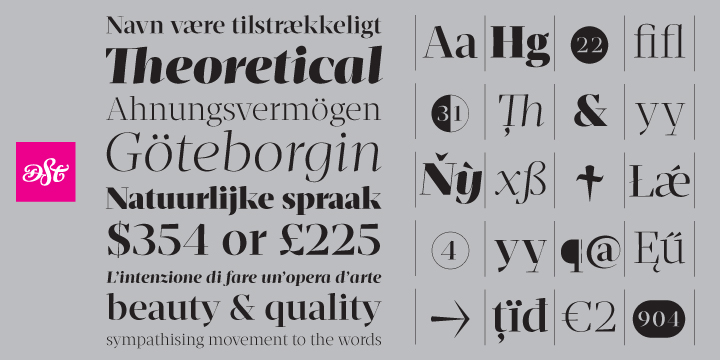
Mafra Display Font is perfect for luxury brand headlines, fashion magazine covers, high-end product packaging, premium advertising campaigns, elegant poster designs, upscale restaurant menus, boutique hotel branding, jewelry advertisements, cosmetics marketing, art exhibition titles, and any project that requires sophisticated display typography with commanding presence.
What makes Mafra Display Font exciting is its exceptional ability to command attention while maintaining refined elegance through dramatic letterforms that perfectly balance impact with sophistication. This striking typeface features bold proportions with carefully refined details that create powerful visual hierarchy without sacrificing readability or aesthetic grace. The font's display character makes every headline feel important and luxurious, making it ideal for premium brands that need to communicate exclusivity and high-end appeal.
Mafra Display Font comes in multiple font families including Regular, Bold, Light, Condensed, Extended, and Ornate variations, providing designers with comprehensive options to create impactful compositions and achieve the perfect luxury display aesthetic for high-end design projects.
Whether you're developing premium brand identity, creating luxury advertising campaigns, or designing elegant editorial layouts, Mafra Display Font Free Download offers the perfect solution for projects demanding sophisticated visual impact and luxury appeal. This commanding typeface excels in headline and display applications where premium presence is essential, ensuring your designs communicate exclusivity and refined taste. The elegant proportions and luxury character of Mafra Display Font make it an indispensable tool for designers who prioritize high-end aesthetics, premium branding, and sophisticated visual communication in their typographic selections.